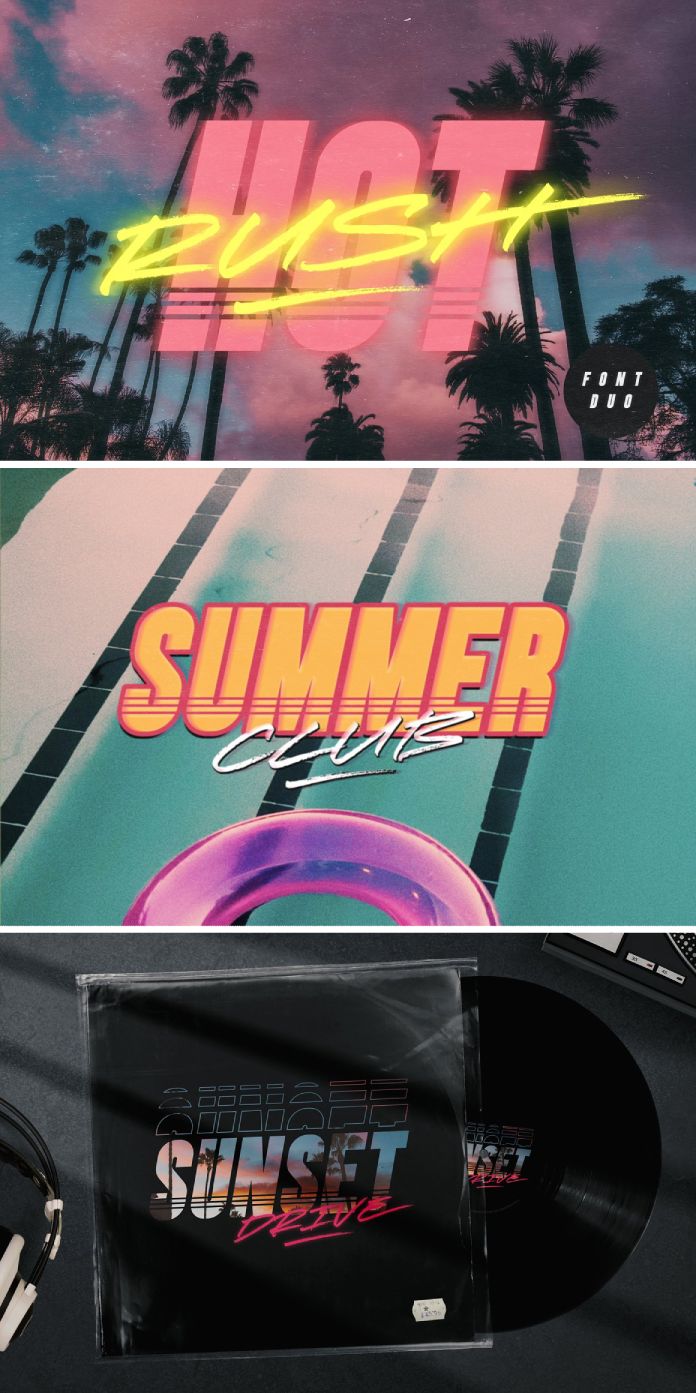
Check out Hot Rush, a wild retro font duo.
Experience an exhilarating journey back in time with Hot Rush! Taking a ride on the DeLorean past 80s nostalgia will never be this exciting. The Sans & Script font duo is made to fit like two pieces of a puzzle – the characteristic condensed sans that’s neat and easy to read, together with its accompanying script typeface which makes long, fast strokes for that extra oomph. Perfectly ideal for retro designs that require high-impact visuals such as logos, packaging, display text, and even merchandise design.
Experience the ultimate in retro coolness with Hot Rush and its two powerful fonts – feel the nostalgia come alive as you type out text that oozes 80s vibes. The combination of condensed sans serif and script font elevates your designs to a whole new level. Create something incredible today with Hot Rush!